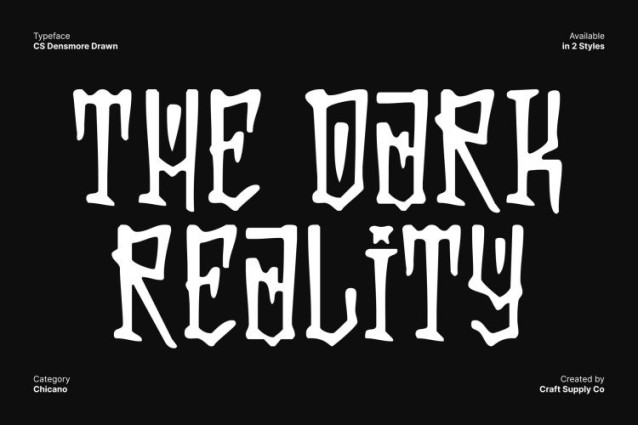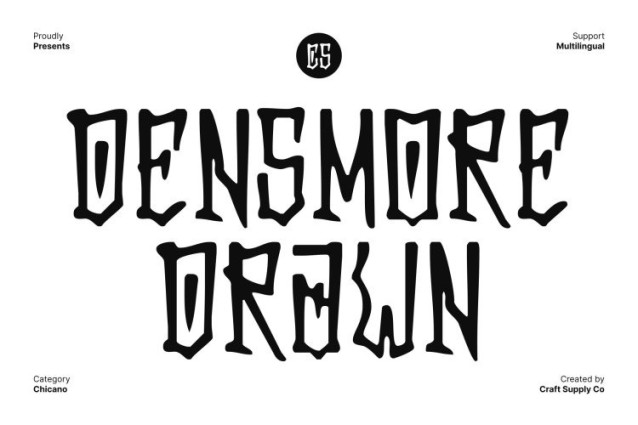
CS Densmore Drawn Font
CS Densmore Drawn Font – This is a display font inspired by the expressive world of Chicano graffiti, blending bold decorative forms with a vibrant street-art spirit. Its strong attitude and unmistakable style make it instantly eye-catching, perfect for projects that demand unmistakable presence and visual personality.
Hand-Drawn Texture for Authentic Urban Character
Every letter in this font carries a handmade texture that amplifies its raw energy. The drawn effect gives each character an organic, personal feel bringing authenticity, movement, and a sense of hand crafted artistry to your designs. This texture enhances the font’s graffiti roots and strengthens its emotional impact.
Bold, Funky, and Expressive Visual Style
The font embraces a combination of funky curves, exaggerated strokes, and lively rhythm, making each glyph feel alive and full of motion. This stylistic fusion creates a powerful balance between urban toughness and playful creativity, perfect for turning any message into a vibrant visual statement.
Perfect for Posters, Branding, Music, and Standout Designs
Whether used for music artwork, bold branding, urban posters, or expressive creative campaigns, this font elevates every layout with its unmistakable graffiti voice. Its energetic presence and artistic flair ensure your design stands out with confidence, attitude, and striking visual power.